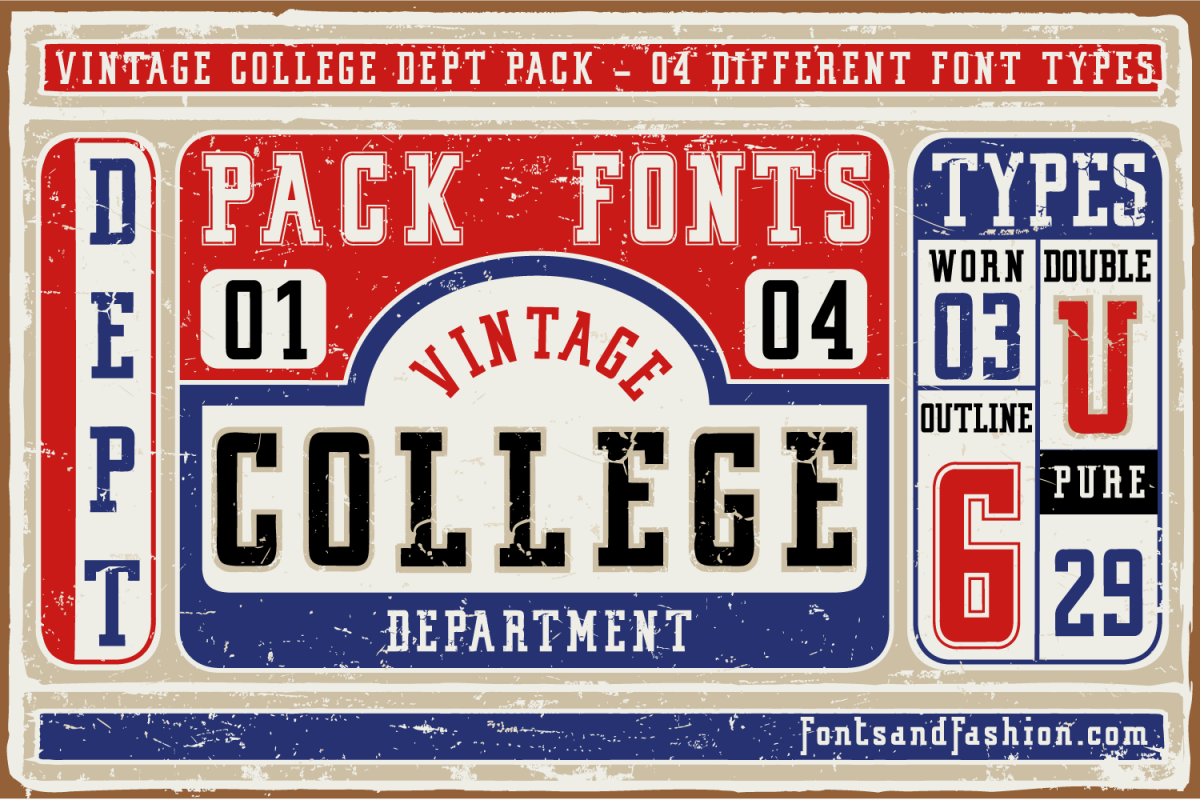
Vintage College Dept_Pack
“VINTAGE COLLEGE DEPT_pack” is a family of 4 different fonts. Has that look and feel of the T-shirts that are ubiquitous on the campuses of colleges and universities over the world. It would make an ideal tool to design them, as well as posters, banners , and to print artwork for promotional gadgets. “VINTAGE COLLEGE DEPT_pack” is an absolutely great place to start.
Although it has a geometric shape, its rounded finish provides it with a warm appearance, making the typefaces nicer and appealing.
"VINTAGE COLLEGE DEPT_PACK" is available in four different styles, the pack includes:
• "VINTAGE COLLEGE DEPT_PURE"
• "VINTAGE COLLEGE DEPT_OUTLINE"
• "VINTAGE COLLEGE DEPT_WORN"
• "VINTAGE COLLEGE DEPT_DOUBLE"  (This version, is realized with two kinds of typefaces, “BOTTOM” and “UP”).